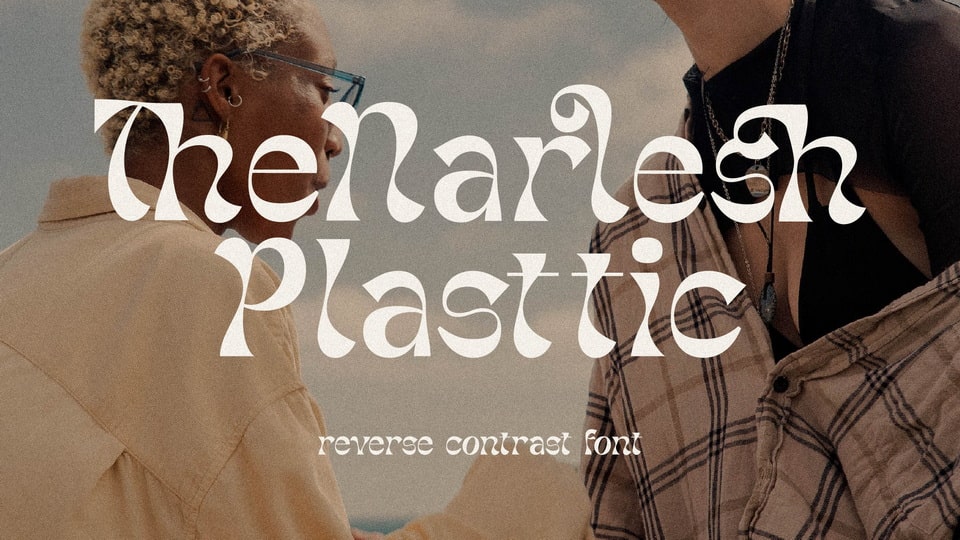
Download Narlesh Plasttic font, a reverse contrast display typeface that has own unique style and retro look. Narlesh Plasttic font is perfect for an elegant and modern logo, book or movie title design, fashion brand, magazine, clothes, lettering, quotes, and so much more.